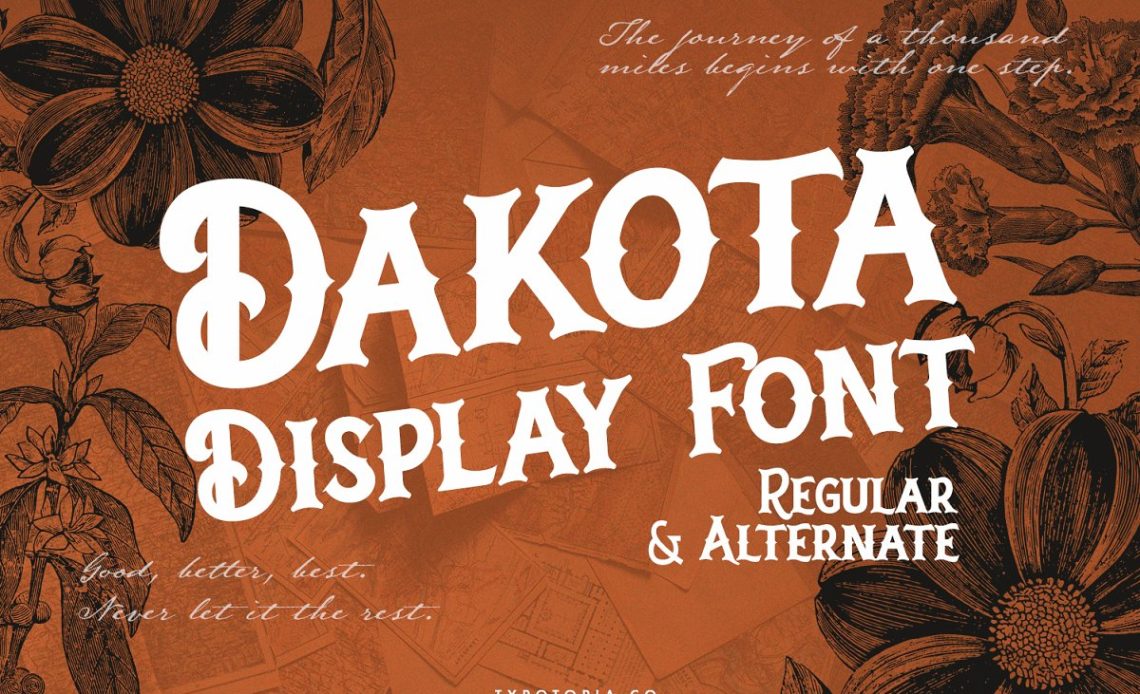
Looking for the best font to make your book title stand out? Look no further! Introducing Dakota Font, the perfect blend of vintage inspiration and modern allure. Created by the talented Khusnun Irawan, this font offers a captivating and unique style that will enhance your designs like never before.
Dakota Font comes in two stylish variations: Regular and Alternate. Each combination has been meticulously crafted to ensure that your designs look absolutely stunning. Whether you need a font for headlines, logotypes, apparel, invitations, branding, packaging, or advertising, Dakota is the ideal choice.
One of the standout features of Dakota is its support for multilingual characters. No matter the language, Dakota has got you covered. From áäåãéèëìïîòöôøùüAÀ�ÂÃÄÅEÈÉÊËIÌ�Î�NÑOÒÓÔÕÖUÙÜÚÛY�Ÿ?Ÿ and beyond, you can express yourself in any foreign language effortlessly.